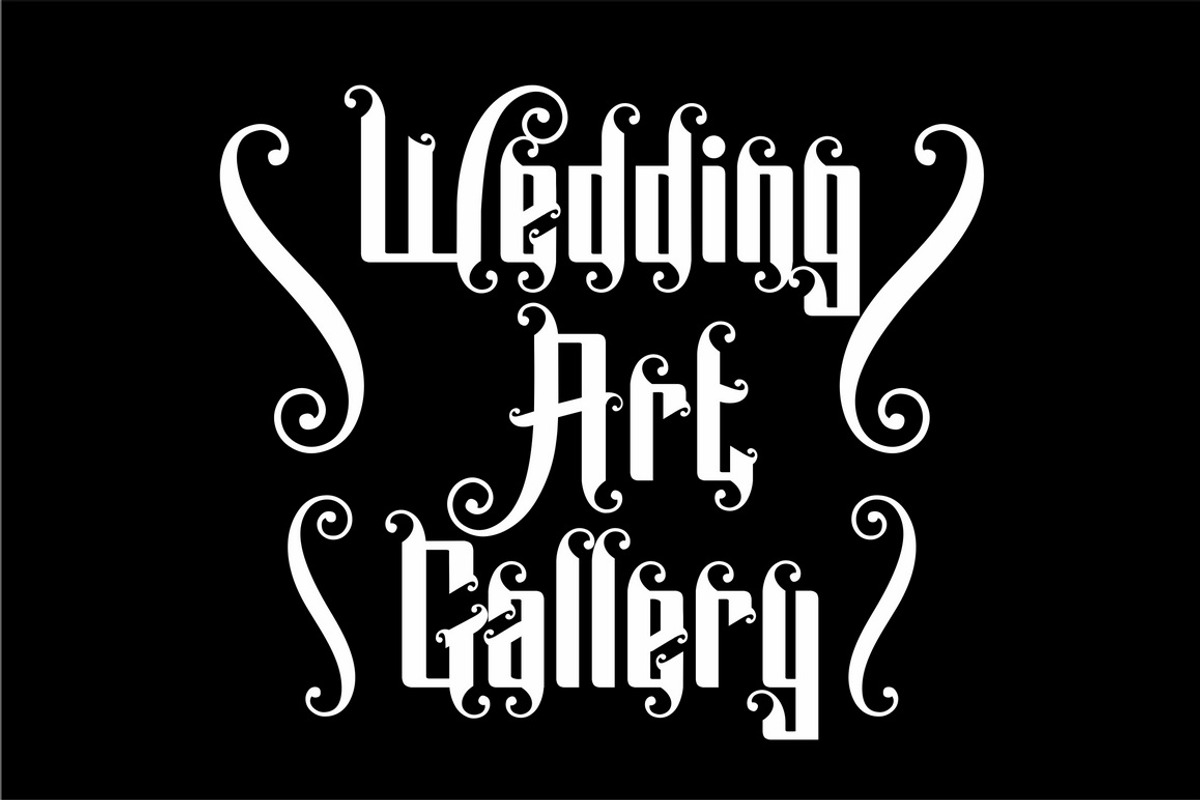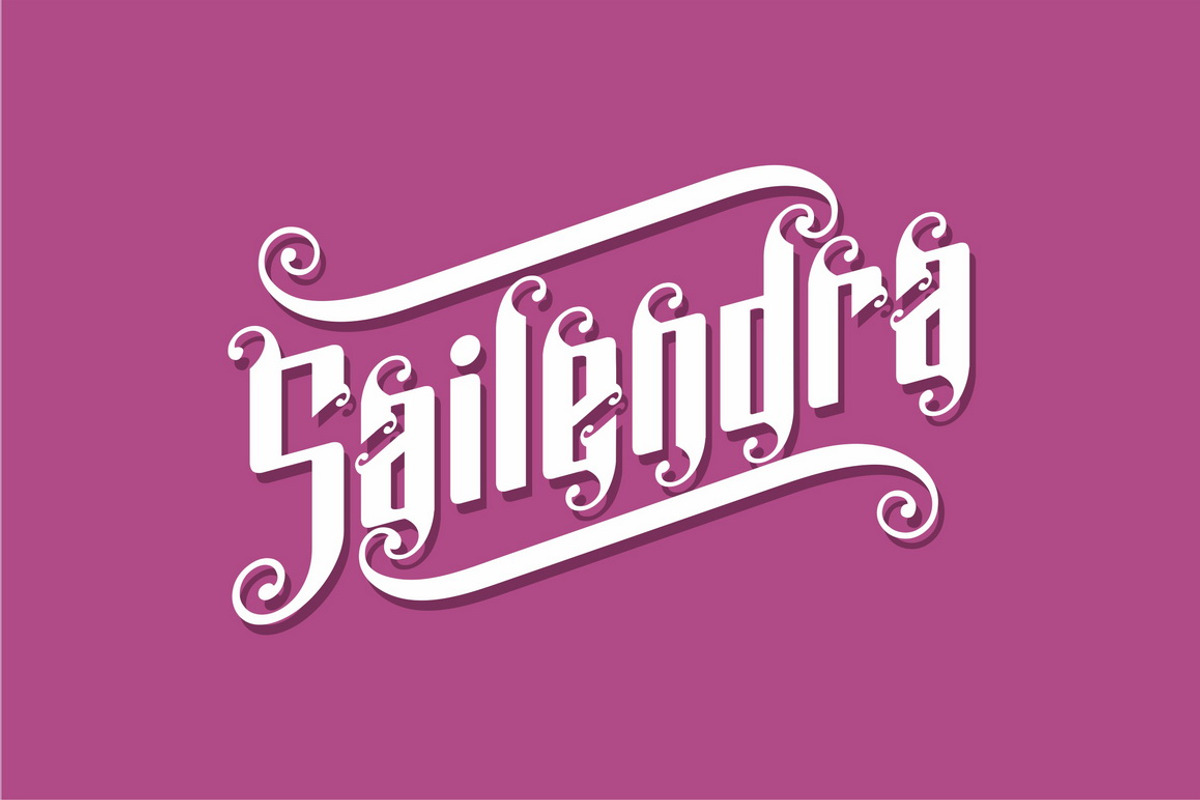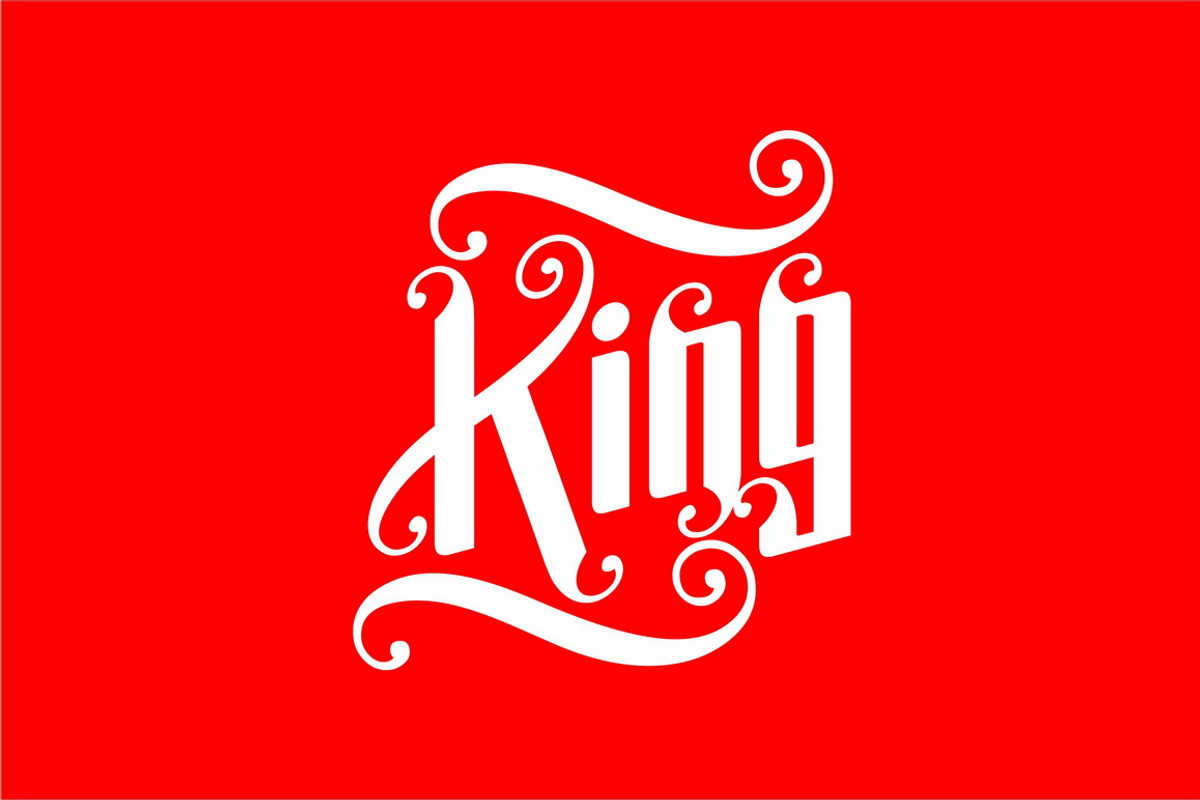
Sailendra Font
Sailendra Font by ABMStudio is a font selected for branding, posters, packaging, typography.
Why Sailendra Font is worth a look
Sailendra Font by ABMStudio fits naturally into Branding, posters, packaging, typography.